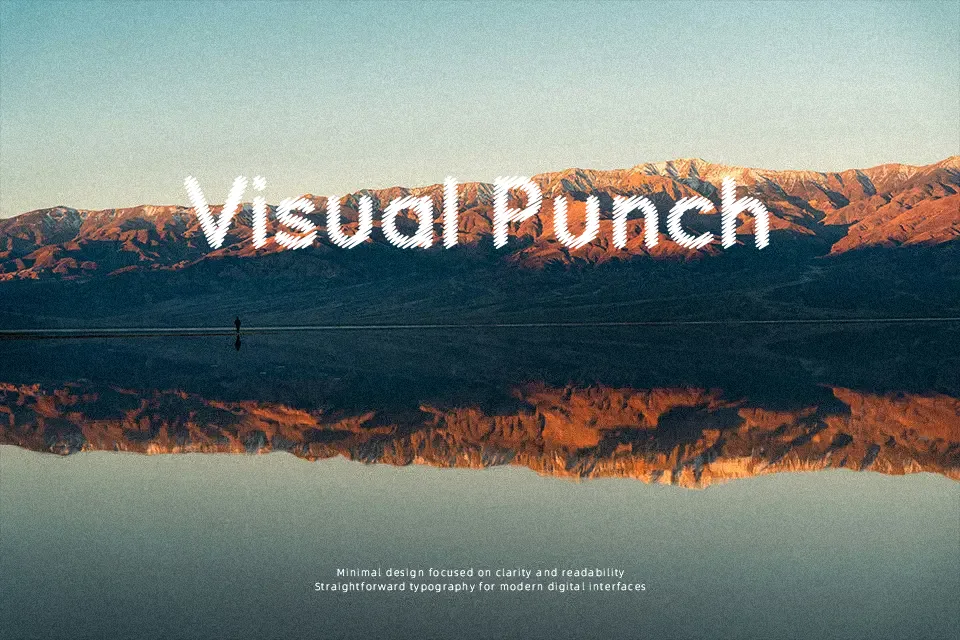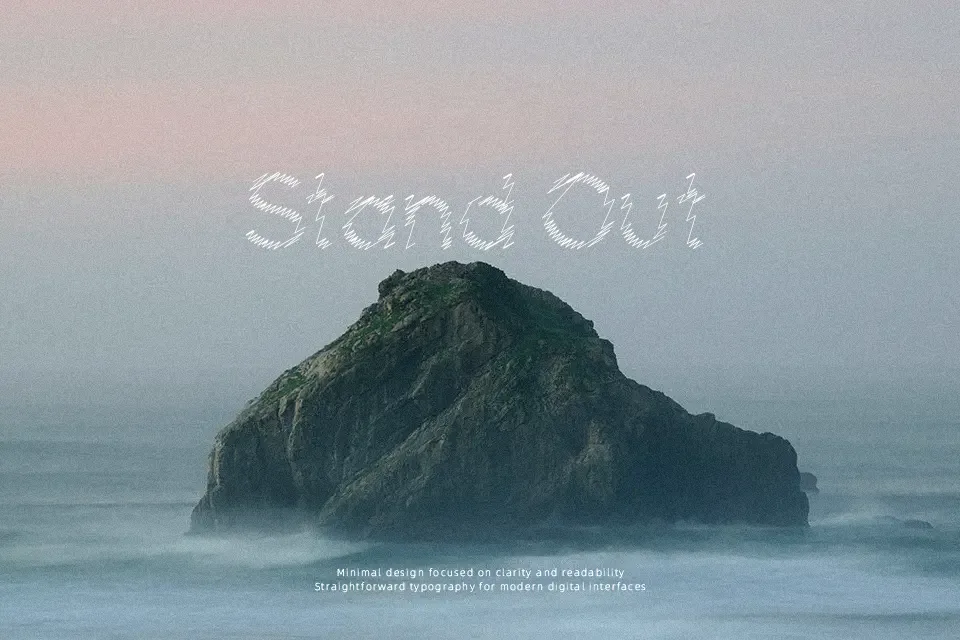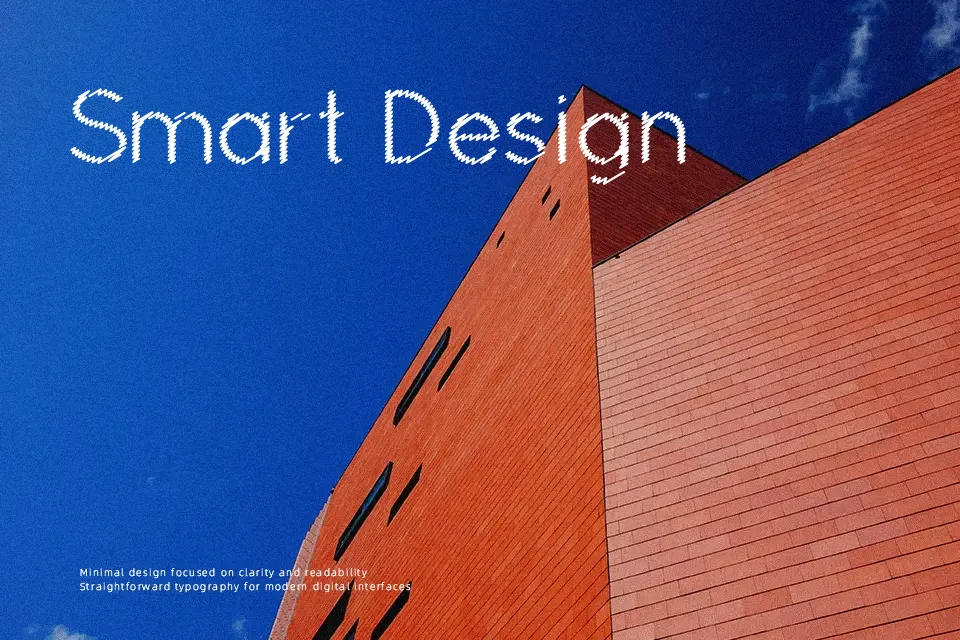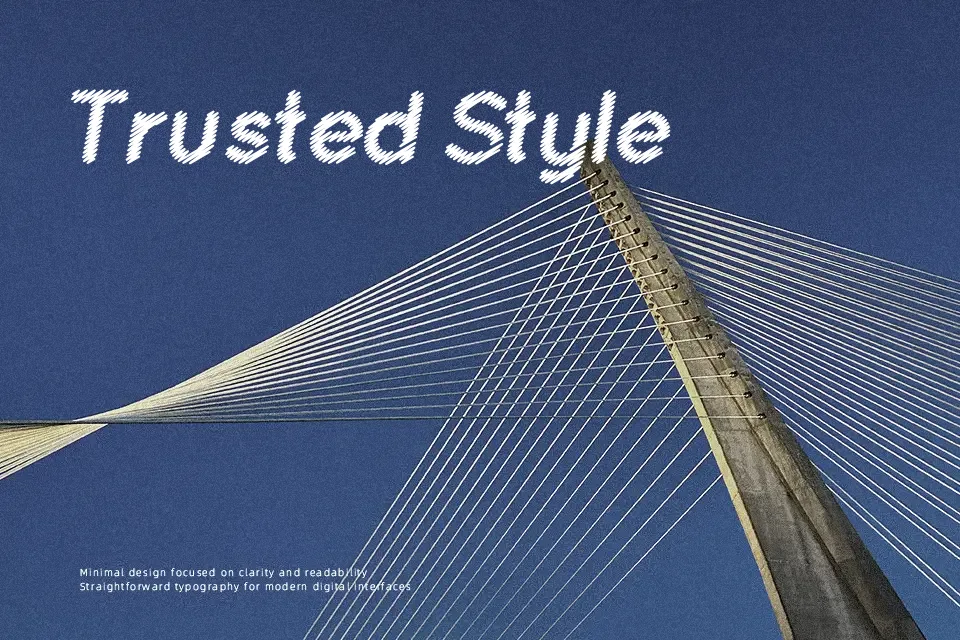
Ocie Font
Designed by Louis Dorman
Ocie Font combines hand-drawn wireframe sketches with structured display letterforms to create an energetic, textured appearance. The typeface features distinct internal cross-hatching, consistent stroke weights, and evenly distributed spacing that maintain character separation in large settings. Proportions remain balanced across the uppercase and lowercase sets, giving titles a coherent rhythm. The decorative linework excels in storyboard headers, video game titles, and apparel graphics where raw personality is essential. However, the dense interior texture quickly clutters at smaller scales, making the design unsuitable for continuous body copy or compact interface labels. Spacing and open silhouettes help maintain clarity across medium and large headline compositions.
Best For: storyboard title cards,creative concept posters,indie game branding,apparel graphic prints
Not Ideal For: continuous body text,mobile interface captions,dense editorial paragraphs,legal documentation
Perfect for gaming, headline, and packaging, with a artistic and decorative style.